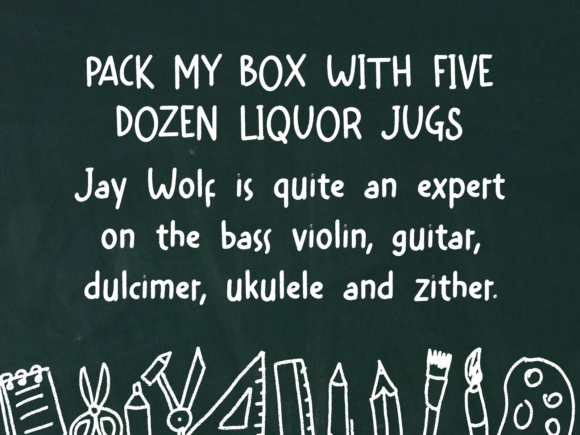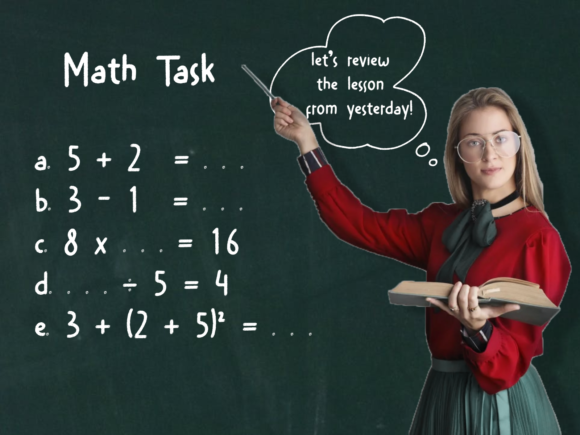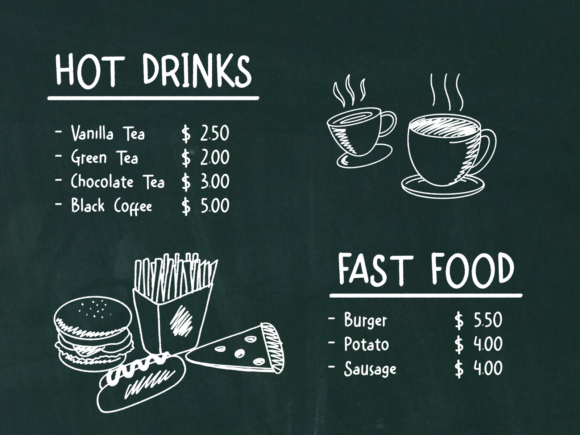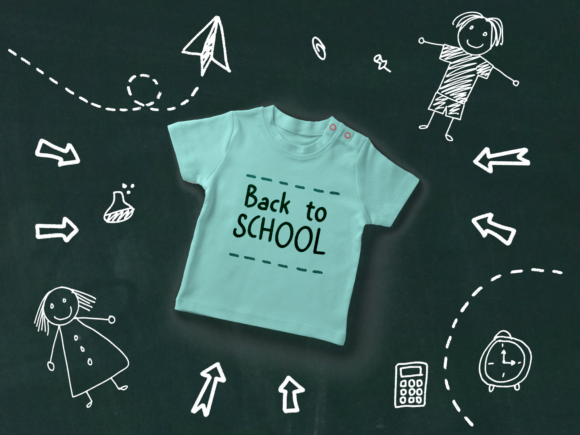
About Nice Chalk Font
Nice Chalk is a cute and simple lettered handwritten font that can be used for all chalkboard quotes or teaching material! Its authentic look will add a personal and realistic feel to your designs.